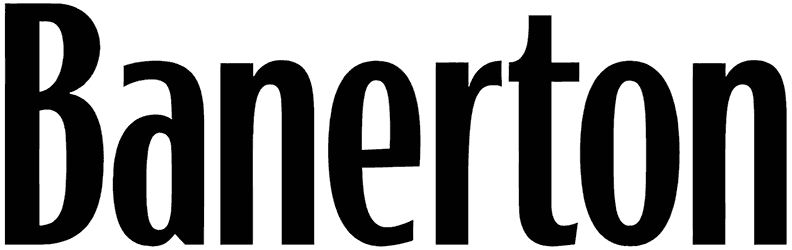
Banerton Font
Weren’t you worried that you might not appear as formal as you planned in your lettering? Then why don’t you let Banerton or some other condensed font of RB handle your business? And the worries are all gone in just a click.
Witness with your own eyes how striking the two font families of it are. You just have to turn it into newspaper titles or use it as a book cover font to find out about its full potential.